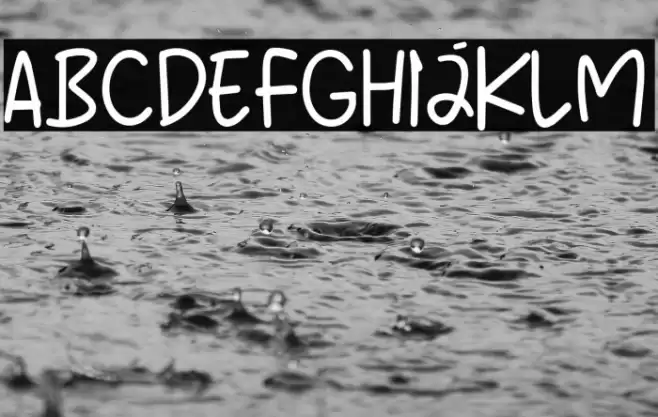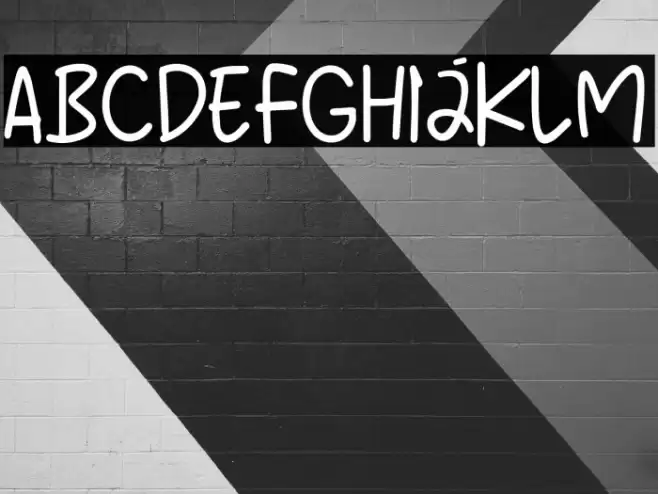
Juliagar Font
Juliagar Description
This font features a playful and informal handwritten style, characterized by its rounded and slightly irregular letterforms. The uppercase and lowercase letters maintain a consistent flow, with a casual and friendly appearance. The numerals and special characters are crafted to match the overall style, ensuring a cohesive look across all text elements. The strokes are moderately thick, providing good readability while maintaining a relaxed aesthetic. This font is ideal for projects that require a personal touch, such as greeting cards, invitations, or children's books. Its approachable and warm design makes it suitable for conveying messages in a lighthearted and engaging manner.
A playful, informal handwritten font with rounded, slightly irregular letterforms from Uncategorized fonts.
- Font: Juliagar
- Proposed Projects: Ideal for greeting cards, invitations, children's books, and casual branding.
- Overall Style: Casual
- Use Case: Headlines, Informal text, Invitations